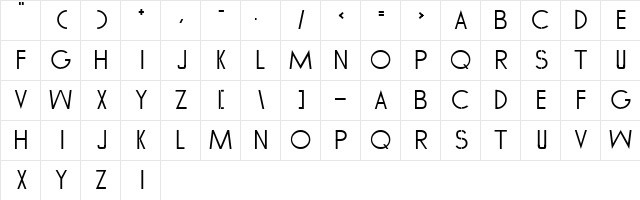
Complete AF TOMMY HILFIGER Regular glyph index. Displaying only characters natively supported by AF TOMMY HILFIGER Regular font.
AF TOMMY HILFIGER is a composed and adaptable typeface that performs quietly and consistently across a wide range of design contexts.